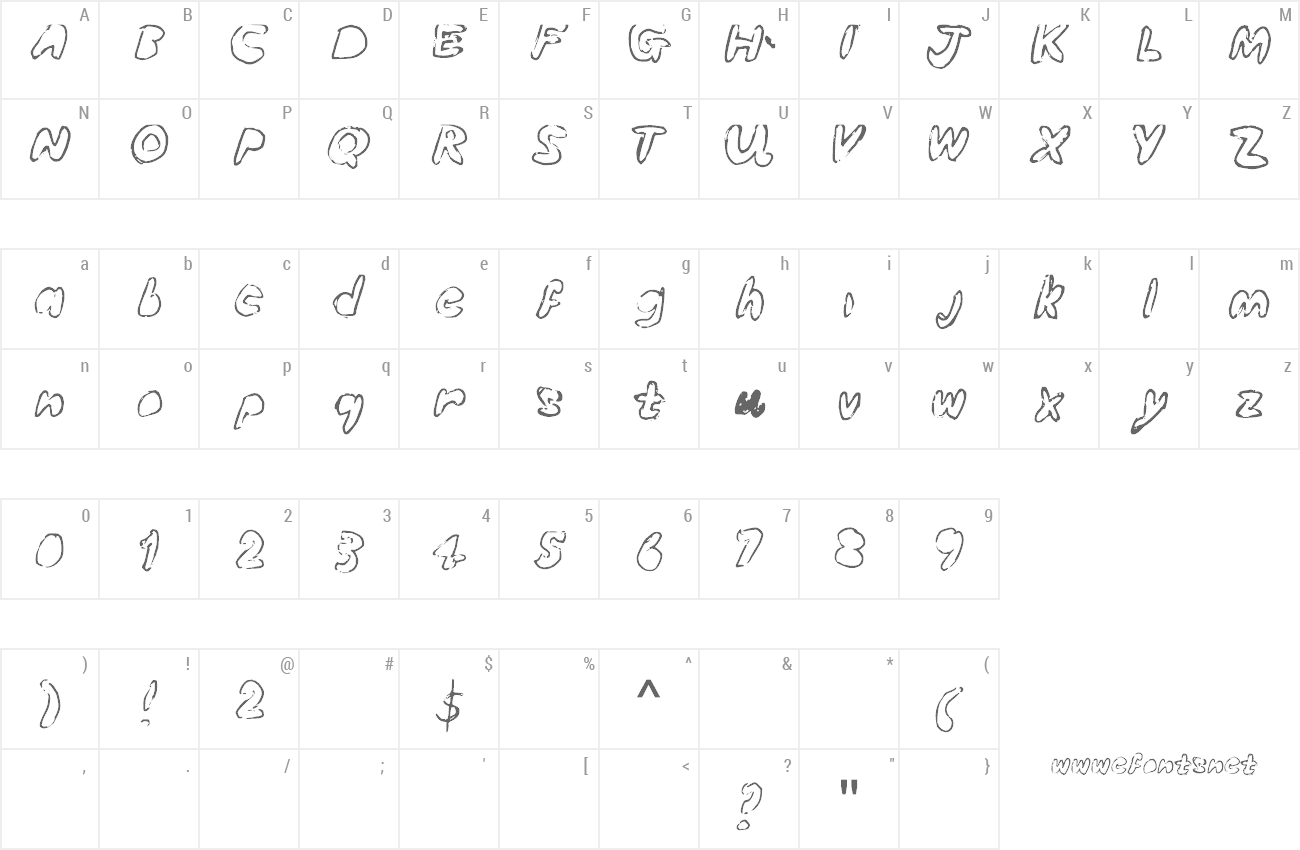
Preview and download Bubbleubble Kicks Some Ass Font. Created by Andrea Garysdóttir in Fancy Cartoon styles with Free for personal use license.
I sort of messed up on writing this one because I used a sort of dinky pen, I'm sorry! Again, with my last font, it's sort of lopsided. I should really start to work on that… Anyway, they're bubble letters. Who doesn't find that handy? |